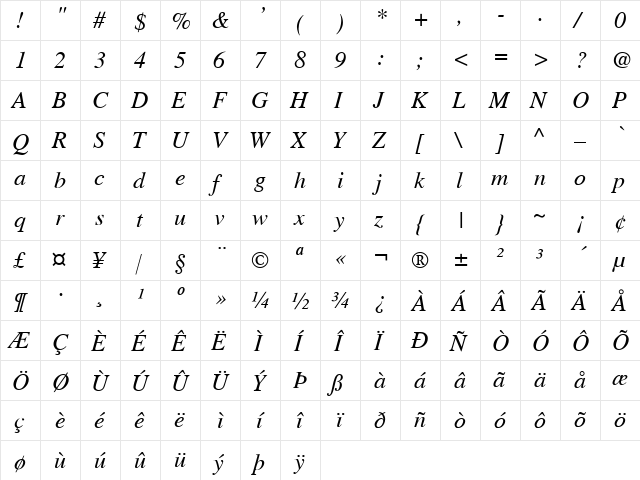
Toronto Italic
Design Context for Toronto Typeface
Toronto offers clean, dependable letterforms without strong stylistic allegiance, making it a practical choice for designers who need flexibility. Its italic angle brings a sense of urgency and motion to the letterforms.
Pro Tip: Try Toronto for annotation and caption copy alongside an upright companion — the contrast in angle creates a dynamic but ordered typographic system.